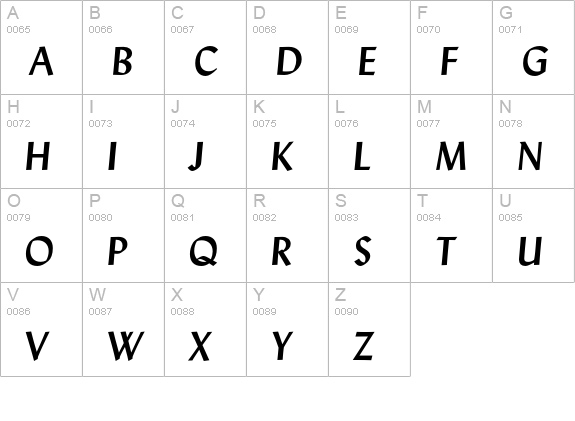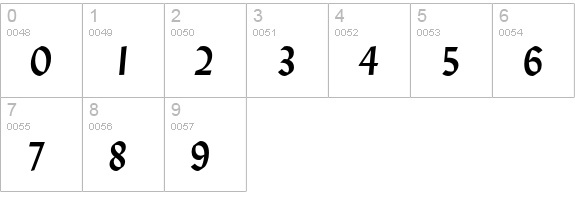
Lydian Bold Italic Font Details
Lydian Bold Italic is a strong, high-contrast, italic variant in the Lydian typeface family \xE2\x80\x94 well suited to headlines, attention-grabbing titles, and strong calls-to-action.
Introducing Lydian Bold Italic, a striking and elegant typeface that exudes sophistication and charm. With its unique blend of boldness and italics, this font is perfect for making a bold statement in your designs. Whether you're creating a logo, poster, or heading, Lydian Bold Italic will surely captivate your audience. The curves and angles of this font create a sense of modernity and style, making it ideal for both digital and print projects. The strong yet graceful letterforms of Lydian Bold Italic will elevate your design and give it a touch of luxury. And the best part? Lydian Bold Italic is available for free download at FontsMarket.com. So, don't miss out on this wonderful opportunity to add this stunning font to your collection. Download it today and let your creativity shine with Lydian Bold Italic!